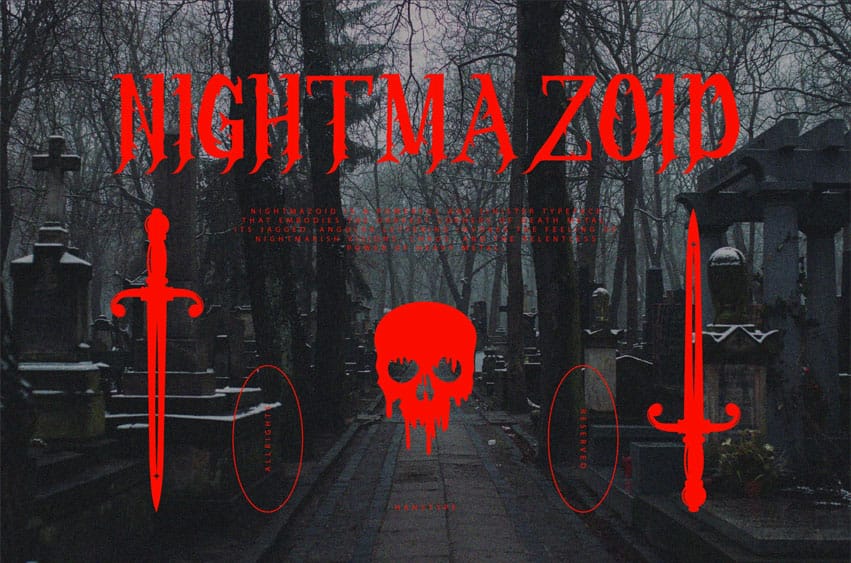
Nightmazoid Deathmetal Font is a powerful and sinister typeface that embodies the darkest corners of death metal.
Its jagged, angular lettering invokes the feeling of nightmarish visions, chaos, and the relentless power of heavy metal.